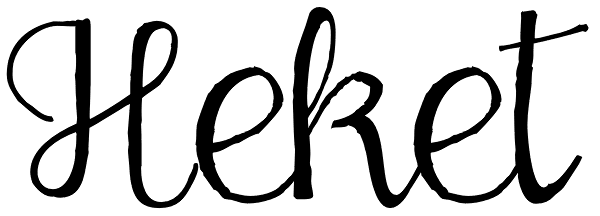
Heket
Heket was a goddess of childbirth and fertility in Ancient Egypt. She was depicted as a frog, or a woman with the head of a frog. Frogs symbolized fruitfulness and new life. Heket font is an expressive handwritten font, it is available in four...
Heket